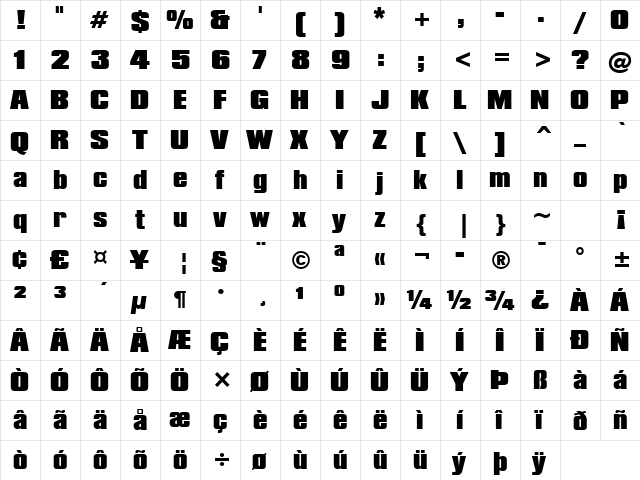
Compacta Blk BT Black
Design Context for Compacta Blk BT Typeface
Compacta Blk BT is a composed and adaptable typeface that performs quietly and consistently across a wide range of design contexts. The condensed width makes it efficient for tight spaces without sacrificing legibility.